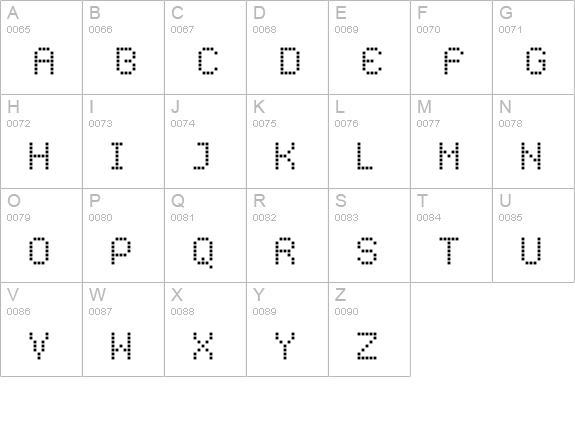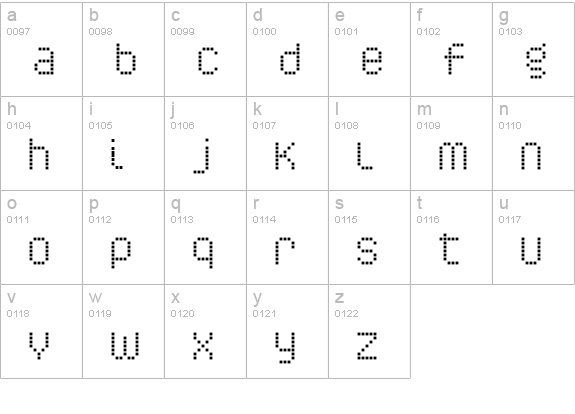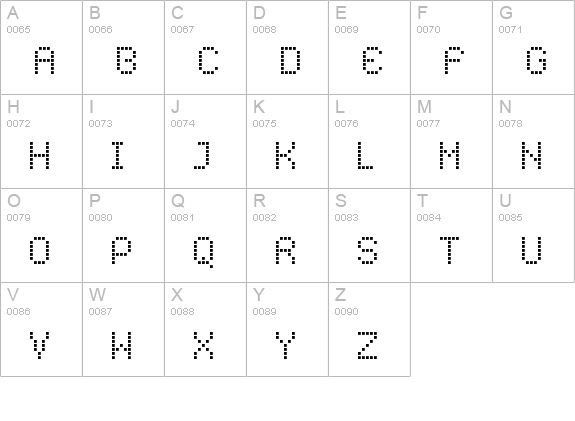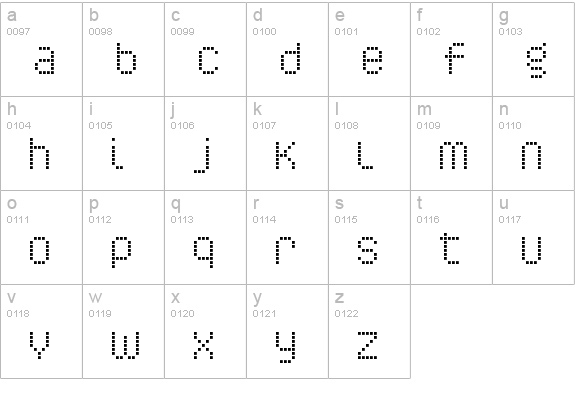
The Caliper RegularCubed font is a modern and sleek typeface that exudes confidence and sophistication. With its clean lines and geometric shapes, this font is perfect for adding a touch of elegance to your designs. Whether you're creating a logo, poster, or website, Caliper RegularCubed will make your text pop and stand out. The best part? Caliper RegularCubed is completely free to download at FontsMarket.com. This means you can access this beautiful font without breaking the bank. So go ahead and elevate your projects with Caliper RegularCubed - the stylish and versatile font that's just a click away.